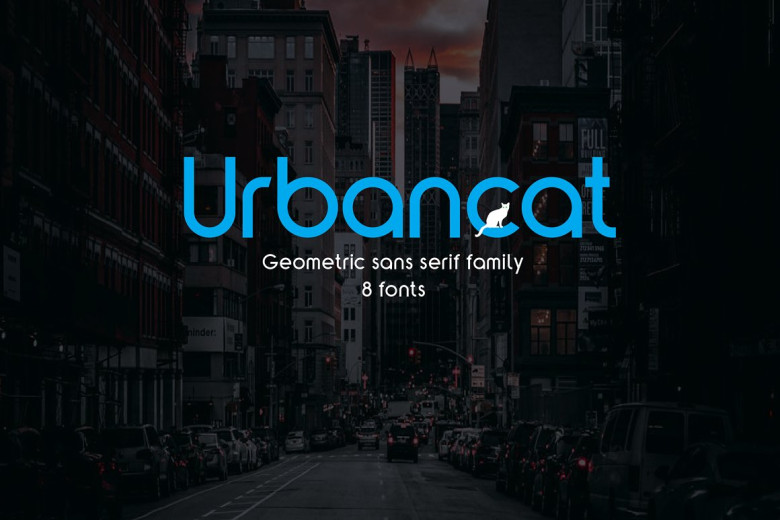
Urbancat Font
Urbancat is an innovative sans serif geometric font family with both lower case characters from Latin, Cyrillic, Latin Eastern Europe, Turkish and Baltic scripts. There are eight fonts within the Urbancat family divided by style type (Str, Rg or St) into four subgroups with four types of thickness in each subgroup – making Urbancat fonts ideal for identity creation, posters and graphic materials – not forgetting word processing!
Urbancat Sans Serif Font Family